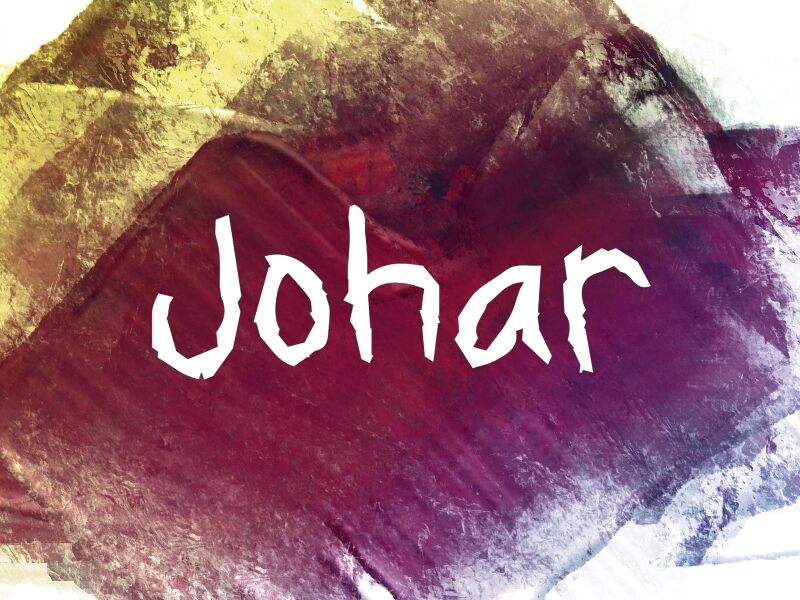
j Johar font by wep is an informal and expressive contemporary font with a very energetic feel. Inspired by the free spirit of the trash and crumpled style, the typeface is raw and artistic. Rugged and powerful in look, it’s ideal for bottle labels, sports branding, shoes stickers, and more. Each letter is unique, so the typeface doesn’t include two similar glyphs.
With such great visual capitals and numerous symbol options, j Johar can only be reserved for special purposes. Build a logo design with it, design poster titles, use it on business cards, and make it part of your magazine title or even newspaper headline.
Johar is a stunning free font designed to add elegance and sophistication to your projects. With its unique style and versatile characteristics, this font can be used for a variety of applications, including branding, invitations, and digital graphics.